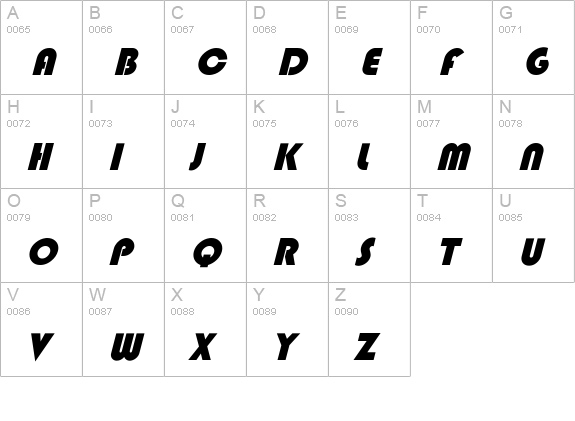
BixleeObl-Heavy is a heavy, high-impact variant in the BixleeObl typeface family \xE2\x80\x94 well suited to high-impact headlines, posters, and display advertising.
BixleeObl-Heavy font is a bold and stylish typeface that exudes a sense of strength and confidence. Its oblique design adds a touch of modernity, making it perfect for conveying a bold and impactful message in various design projects. This versatile font is ideal for headlines, titles, posters, and branding materials that require a strong visual presence. BixleeObl-Heavy font's sturdy letterforms command attention and ensure that your message stands out. The best part? BixleeObl-Heavy font is available for free download at FontsMarket.com. So go ahead and elevate your designs with this powerful and eye-catching typeface without breaking the bank. Download now and make a statement with BixleeObl-Heavy font!